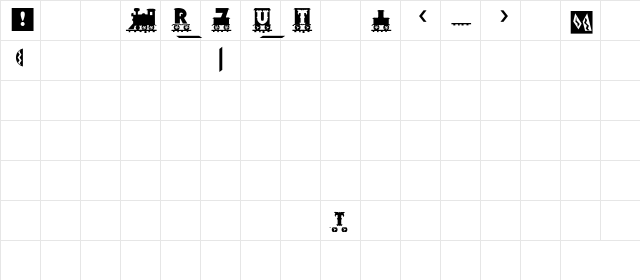
ToyBlock Regular Free Font
ToyBlock Regular
ToyBlock Family
Design Context for ToyBlock
ToyBlock is a composed and adaptable typeface that performs quietly and consistently across a wide range of design contexts.
Pro Tip: Use ToyBlock in both headline and body roles to test its range before committing to a single application.